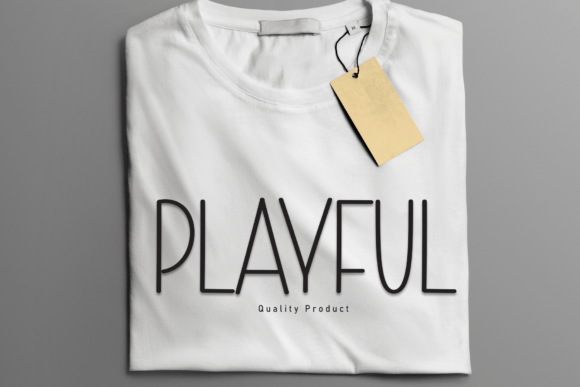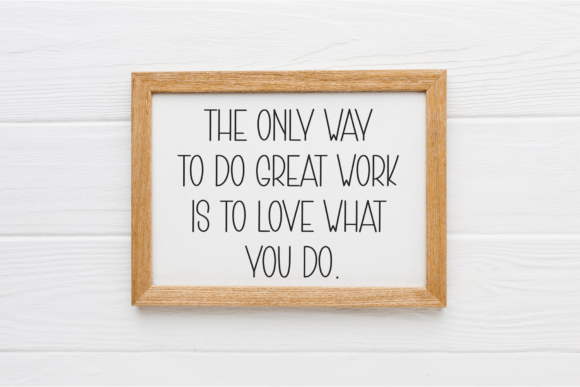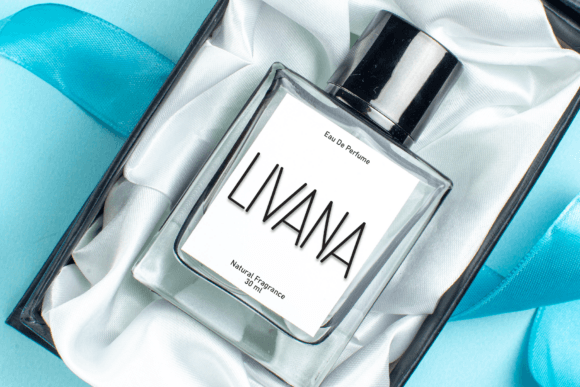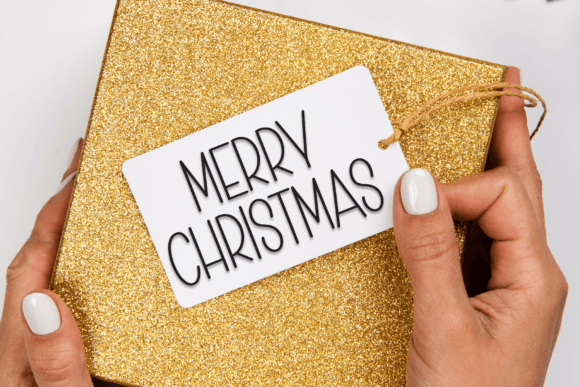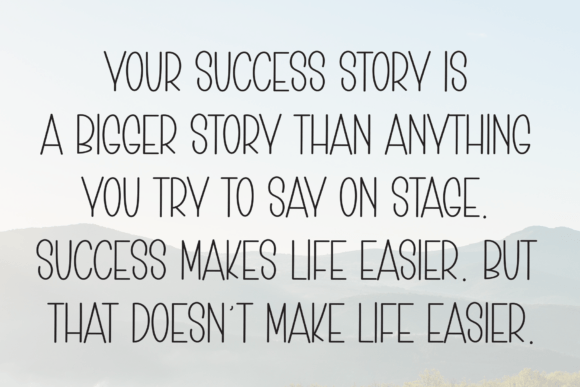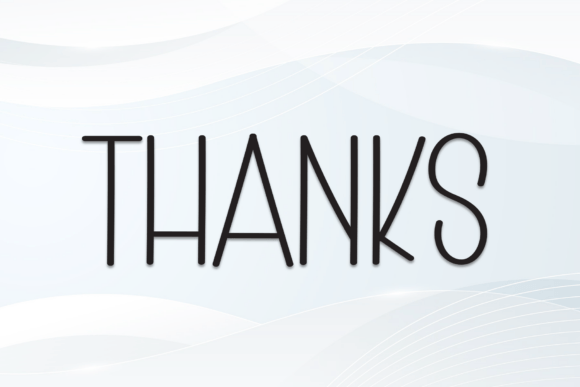
Introducing Background Font: The Ultimate Charm for Your Designs
Are you tired of using the same old fonts for your designs? Do you want to add a touch of warmth and friendliness to your creations? Look no further than Background Font, a charming handwritten font that is sure to elevate your designs to the next level. In this article, we’ll dive into the delightful world of Background Font and explore its unique features, uses, and benefits.
The Allure of Background Font
Background Font is a uniquely endearing typeface that epitomizes warmth and friendliness. Its inviting allure is perfect for designers and crafters looking to add a playful spark to their creations. Whether you’re working on a wedding invitation, greeting card, or any other design project, this font is sure to breathe life into your work. With its sweet and fun tone, Background Font is the secret ingredient you need to take your designs from ordinary to extraordinary.
What Makes Background Font Special?
So, what sets Background Font apart from other fonts? Here are a few features that make it truly special:
- Handwritten charm: Background Font is a handwritten font, which gives it a personal and intimate feel. Its imperfections and quirks make it look like it was written just for you.
- Warm and friendly tone: This font exudes warmth and friendliness, making it perfect for designs that require a personal touch.
- Playful and whimsical: Background Font has a playful and whimsical vibe that’s perfect for adding a touch of fun to your designs.
- Versatile: This font is versatile and can be used for a wide range of design projects, from wedding invitations to greeting cards, posters, and more.
Uses for Background Font
Background Font is a versatile font that can be used for a variety of design projects. Here are some ideas to get you started:
- Wedding invitations: Add a touch of elegance and whimsy to your wedding invitations with Background Font.
- Greeting cards: Use this font to create playful and personalized greeting cards for birthdays, holidays, and other special occasions.
- Posters and flyers: Background Font is perfect for creating eye-catching posters and flyers that require a playful and attention-grabbing font.
- Social media graphics: Use this font to create engaging social media graphics that will help you stand out from the crowd.
Tips for Using Background Font
Here are some tips for using Background Font in your designs:
- Pair it with other fonts: Background Font pairs well with other fonts, so don’t be afraid to experiment with different combinations.
- Use it for headings and titles: This font is perfect for headings and titles, where you want to make a bold statement.
- Experiment with colors: Background Font looks great in a variety of colors, so don’t be afraid to experiment with different color schemes.
In conclusion, Background Font is a charming handwritten font that is sure to add a playful spark to your designs. With its warm and friendly tone, playful and whimsical vibe, and versatility, this font is perfect for a wide range of design projects. Whether you’re a designer or crafter, Background Font is a must-have font that will help you take your designs to the next level. So why wait? Discover the inviting allure of Background Font today and start creating designs that are truly extraordinary!